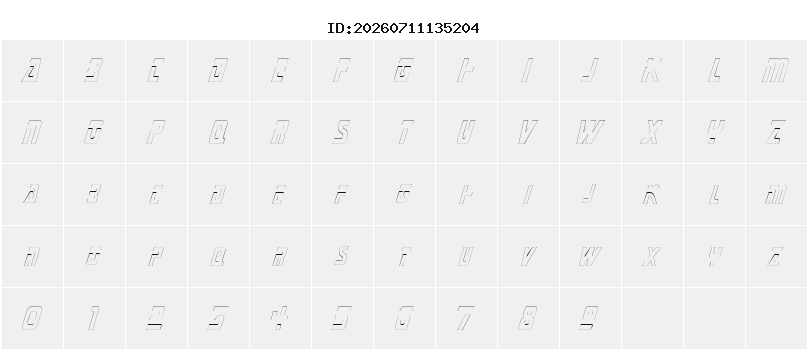
MarinerCondensedOutline Preview
• Font Name: MarinerCondensedOutline
• Font ID: SWFTE:MarinerCondensedOutline Regular
• Full Font Name: MarinerCondensedOutline
• Version: Rev. 003.000
• PostScript Name: MarinerCondensedOutlineRegularSWFTE
About MarinerCondensedOutline.ttf
MarinerCondensedOutline.ttf is a modern, elegant sans-serif font designed for ultimate readability and visual harmony. Perfect for branding, headlines, web design, and print materials.